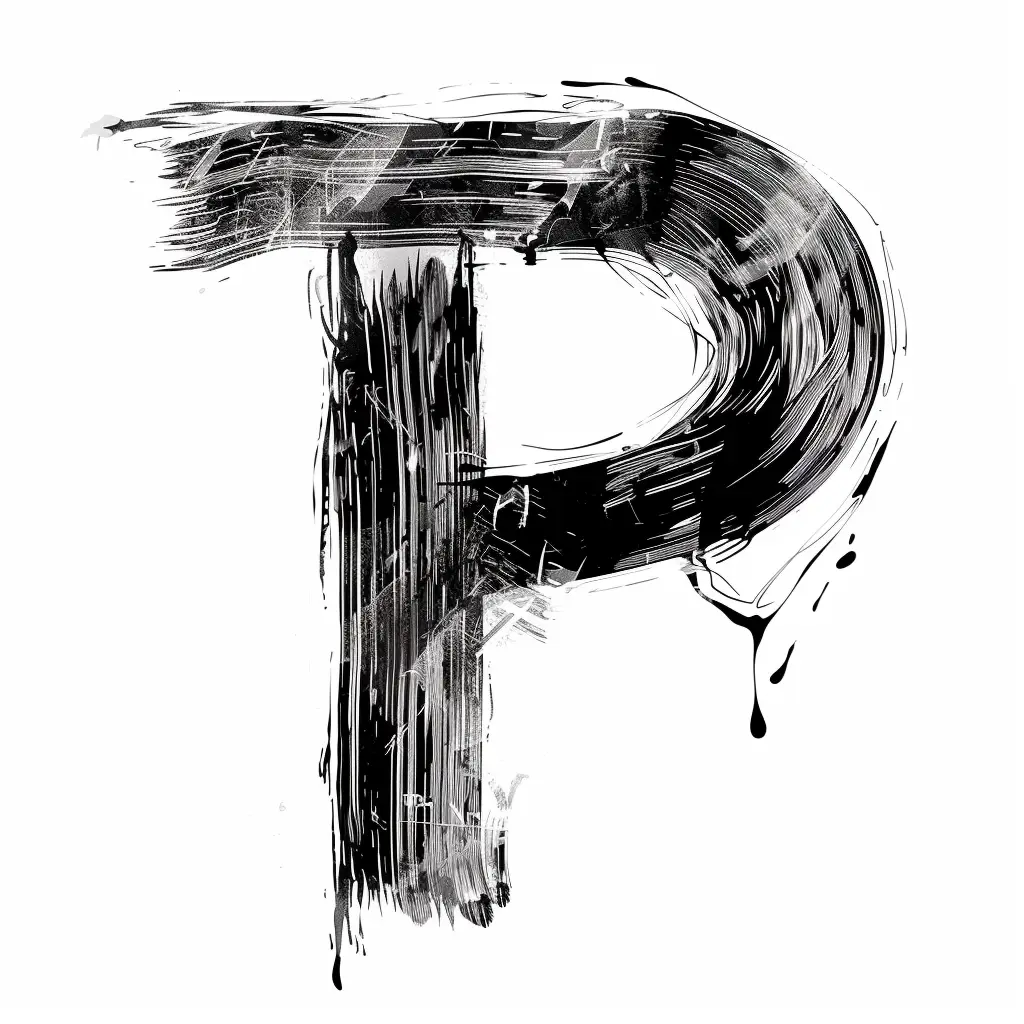
This image features a stylized, abstract representation of the letter "P" rendered in bold black brushstrokes against a white background. The design incorporates dynamic, textured lines, drips, and layered ink effects, giving it a raw, expressive, and artistic feel. The monochromatic color scheme emphasizes the contrast between the dark, fluid strokes and the clean, light backdrop, highlighting the letter’s organic, hand-painted aesthetic.